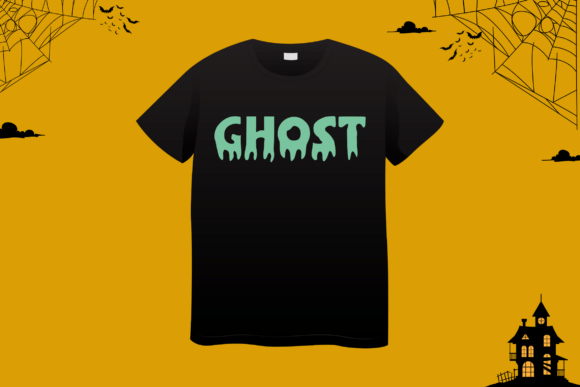
Novox Ghost Font: Unleashing the Spine-Chilling Spirit of Fear and Mystery
In the realm of typography, few fonts have managed to capture the essence of fear, mystery, and rebellious style as effectively as the Novox Ghost Font. Born from the shadows of urban decay and horror aesthetics, this display font is designed to evoke a sense of eeriness and foreboding, making it the perfect choice for designers looking to add a haunted edge to their projects. In this article, we’ll delve into the world of Novox Ghost, exploring its unique features, design inspiration, and the various applications where this font can be used to create an unforgettable impact.
The Birth of Novox Ghost
Novox Ghost is a display font that draws inspiration from the darker corners of urban landscapes and horror aesthetics. Its design is a culmination of the eerie and the unknown, making it an ideal choice for projects that require a bold and haunting typography. The font’s creator aimed to craft a typeface that would not only evoke a sense of fear but also convey a sense of mystery and rebellious style.
The design process involved experimenting with various shapes, textures, and styles to create a font that would stand out from the rest. The result is a font that features elongated drips, eerie shapes, and a semi-transparent βghostlyβ texture, giving it an otherworldly appearance.
Key Features of Novox Ghost
So, what makes Novox Ghost so unique? Here are some of its key features:
- Elongated Drips: The font features elongated drips that give it a sense of fluidity and movement. These drips add a touch of eeriness to the font, making it perfect for projects that require a sense of foreboding.
- Eerie Shapes: Novox Ghost features a range of eerie shapes that are sure to send shivers down the spine. From twisted curves to jagged edges, these shapes add a level of complexity to the font.
- Semi-Transparent Texture: The font’s semi-transparent βghostlyβ texture gives it an ethereal quality, making it seem like the letters are floating on the page.
These features combined create a font that is both haunting and beautiful, making it perfect for a wide range of applications.
Design Inspiration
The design inspiration behind Novox Ghost is rooted in the darker corners of urban landscapes and horror aesthetics. The font’s creator drew inspiration from:
- Urban Decay: Crumbling buildings, abandoned streets, and overgrown vegetation all served as inspiration for the font’s design.
- Horror Aesthetics: Classic horror movies, creepy crawlies, and the supernatural all played a role in shaping the font’s design.
- Metal and Punk Culture: The font’s bold and rebellious style is reminiscent of the metal and punk music scenes.
This diverse range of inspirations has resulted in a font that is both unique and captivating.
Applications for Novox Ghost
Novox Ghost is a versatile font that can be used in a wide range of applications, including:
- Halloween-themed Designs: The font’s spooky and eerie design makes it perfect for Halloween-themed designs, such as invitations, posters, and social media graphics.
- Metal and Punk Band Branding: The font’s bold and rebellious style makes it an ideal choice for metal and punk band branding, including logos, merchandise, and album artwork.
- Street Fashion: Novox Ghost’s edgy and avant-garde design makes it a great fit for street fashion brands looking to add a touch of rebellion to their marketing materials.
- Digital Art: The font’s unique and captivating design makes it perfect for digital art projects, such as illustrations, animations, and video game designs.
Whether you’re a designer, artist, or marketer, Novox Ghost is a font that is sure to inspire and captivate your audience.
Tips for Using Novox Ghost
Here are some tips for getting the most out of Novox Ghost:
- Experiment with Colors: The font’s semi-transparent texture looks great with bold and bright colors. Experiment with different color combinations to create a unique look.
- Play with Texture: Novox Ghost’s texture is one of its standout features. Experiment with different textures and overlays to add depth and complexity to your designs.
- Mix and Match: Don’t be afraid to mix and match Novox Ghost with other fonts and design elements. The font’s bold and rebellious style pairs well with a wide range of design styles.
By following these tips, you can unlock the full potential of Novox Ghost and create designs that are truly unforgettable.
Novox Ghost is a font that is sure to leave a lasting impression. Its unique and captivating design makes it perfect for a wide range of applications, from Halloween-themed designs to metal and punk band branding. With its bold and rebellious style, semi-transparent texture, and eerie shapes, Novox Ghost is a font that is sure to inspire and captivate your audience.